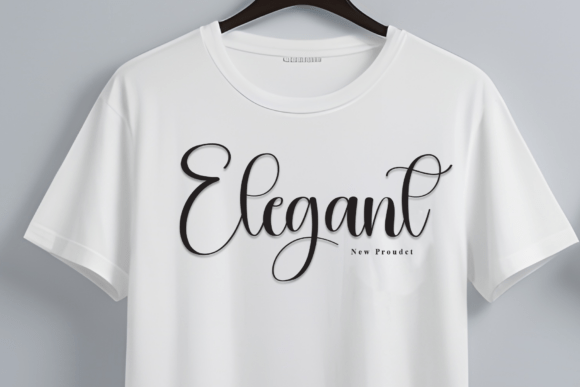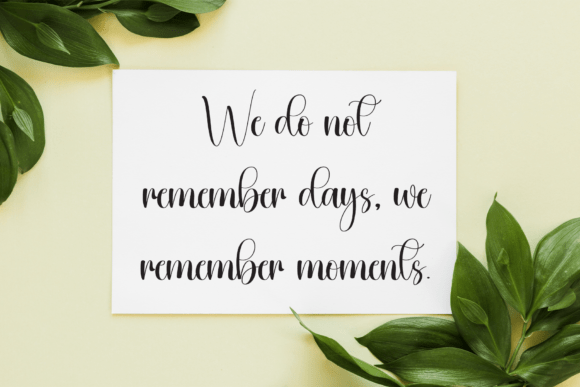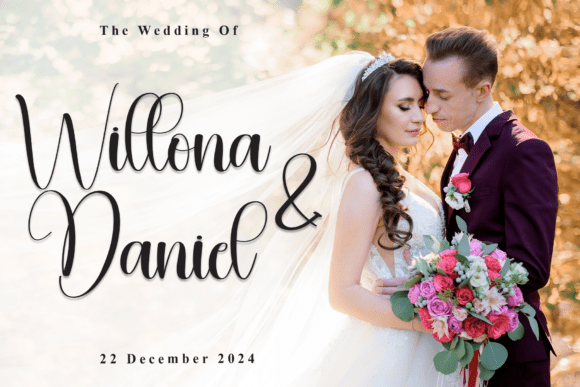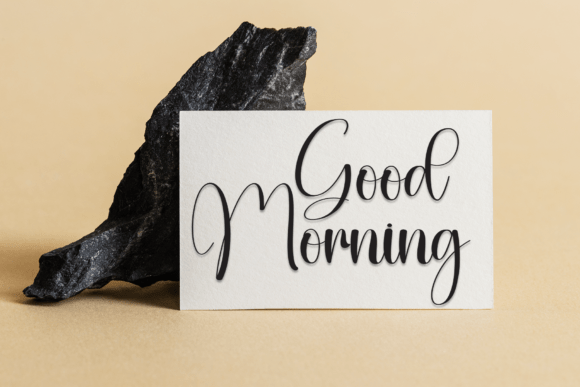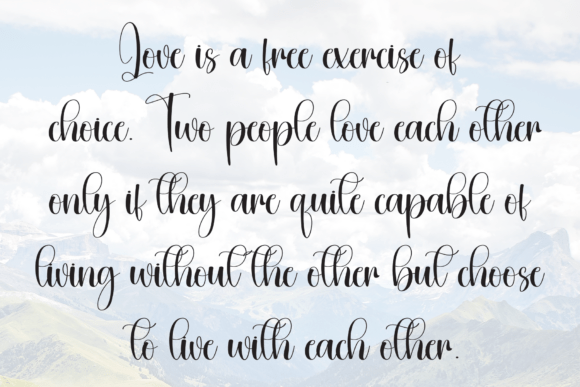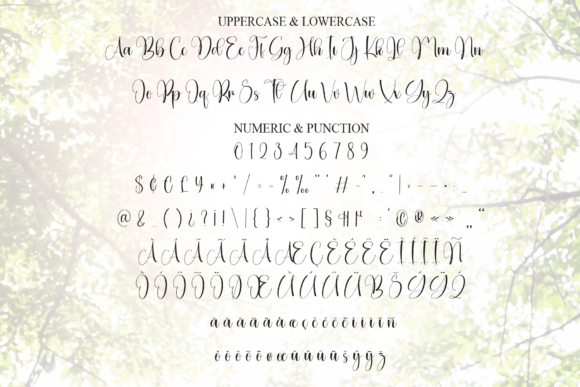
Introducing Brightson: The Elegant Handwritten Script Font
In the world of typography, a good font can make all the difference in the success of a design project. For designers and crafters looking to add a touch of elegance and charm to their work, Brightson is a stylish handwritten script font that is sure to impress. With its fluid strokes and natural flow, Brightson creates a captivating, sophisticated look that is perfect for a variety of design applications.
The Characteristics of Brightson
Brightson is a carefully crafted font that exudes warmth and creativity. Its handwritten script style gives it a personal and intimate feel, making it ideal for designs that require a human touch. The font’s fluid strokes and natural flow create a sense of movement and elegance, adding a level of sophistication to any design. Whether you’re working on a wedding invitation, a branding project, or a social media graphic, Brightson is the perfect choice.
Brightson’s versatility makes it suitable for a wide range of design applications. Here are just a few examples of how you can use this beautiful font:
- Invitations: Add a touch of elegance to your wedding invitations, birthday party invites, or baby shower announcements with Brightson.
- Branding: Use Brightson to create a unique and memorable brand identity for your business or product.
- Social Media: Add a personal touch to your social media graphics, such as Instagram posts, Facebook covers, or Twitter headers, with Brightson.
- Stationery: Create beautiful stationery, such as letterheads, notecards, or journals, with Brightson.
Why Choose Brightson?
With so many fonts available, why choose Brightson? Here are just a few reasons why Brightson stands out from the crowd:
- Unique and Elegant: Brightson has a unique and elegant style that will set your designs apart from the rest.
- Highly Versatile: Brightson is suitable for a wide range of design applications, from invitations to branding and social media.
- Easy to Read: Despite its elegant and cursive style, Brightson is highly legible and easy to read.
- Perfect for Digital and Print: Brightson works beautifully in both digital and print formats, making it perfect for a variety of design projects.
Tips for Using Brightson
To get the most out of Brightson, here are a few tips to keep in mind:
- Use it as a Headline Font: Brightson works beautifully as a headline font, adding a touch of elegance and sophistication to your design.
- Pair it with a Sans-Serif Font: For body text, pair Brightson with a sans-serif font to create a beautiful contrast.
- Experiment with Colors: Brightson works beautifully in a variety of colors, so don’t be afraid to experiment and find the perfect hue for your design.
In conclusion, Brightson is a stylish handwritten script font that is perfect for designers and crafters looking to add a touch of elegance and charm to their work. With its fluid strokes and natural flow, Brightson creates a captivating, sophisticated look that is suitable for a wide range of design applications. Whether you’re working on a wedding invitation, a branding project, or a social media graphic, Brightson is the perfect choice. So why not give Brightson a try and see the difference it can make in your designs?